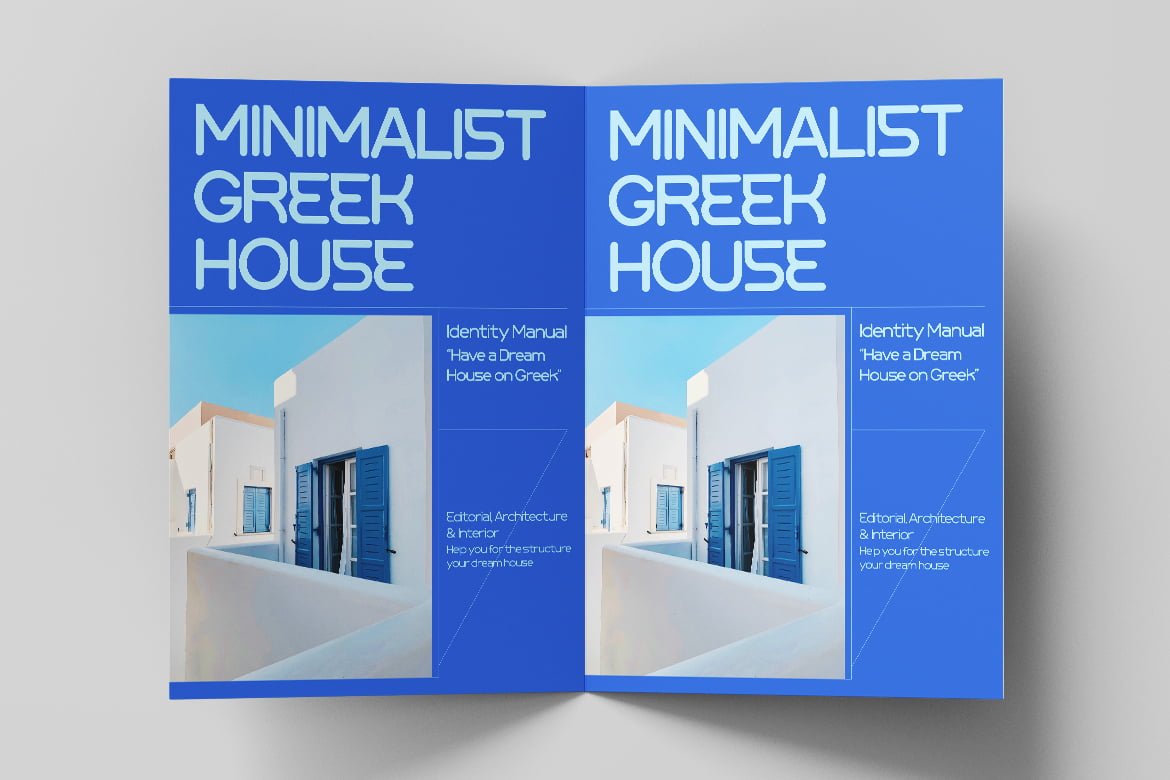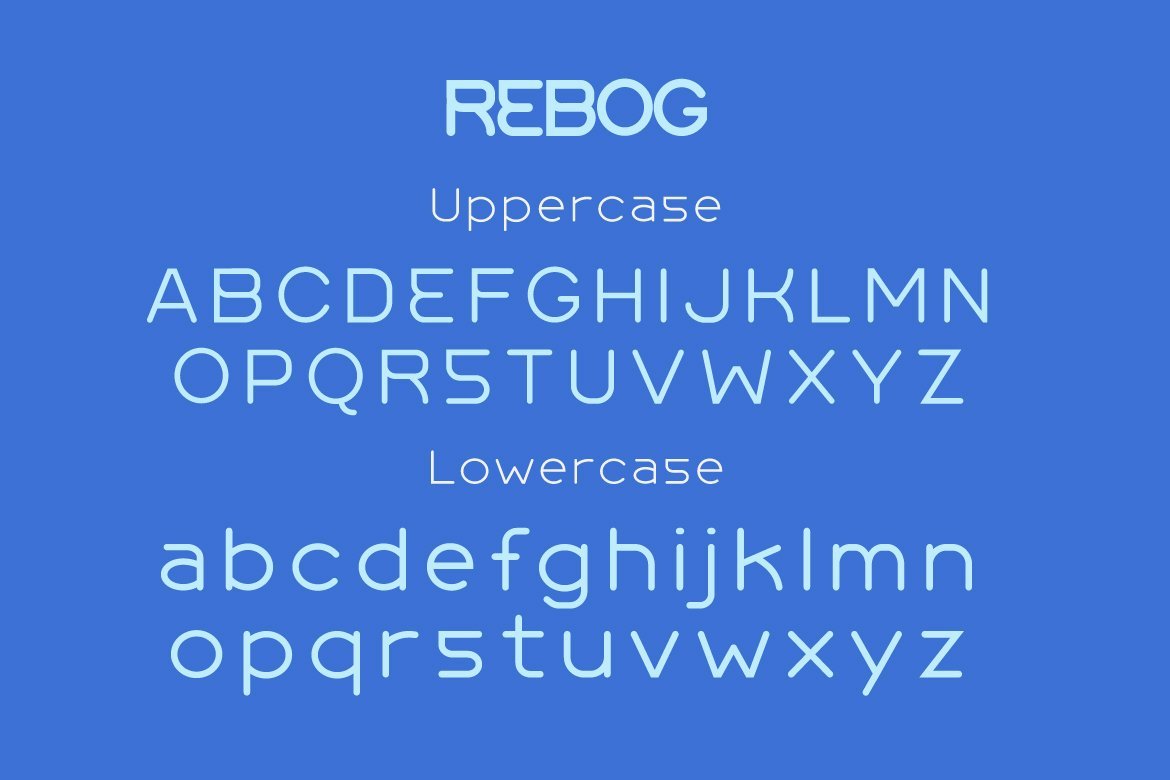
Rebog
Rebog, our newest Sanserif font, is a typeface that is ideal for a variety of specific tasks. See how adaptable it is indifferent projects; of course, your project will seem distinctive and appealing from the corner of your eye, making it easier for your audience to remember it.